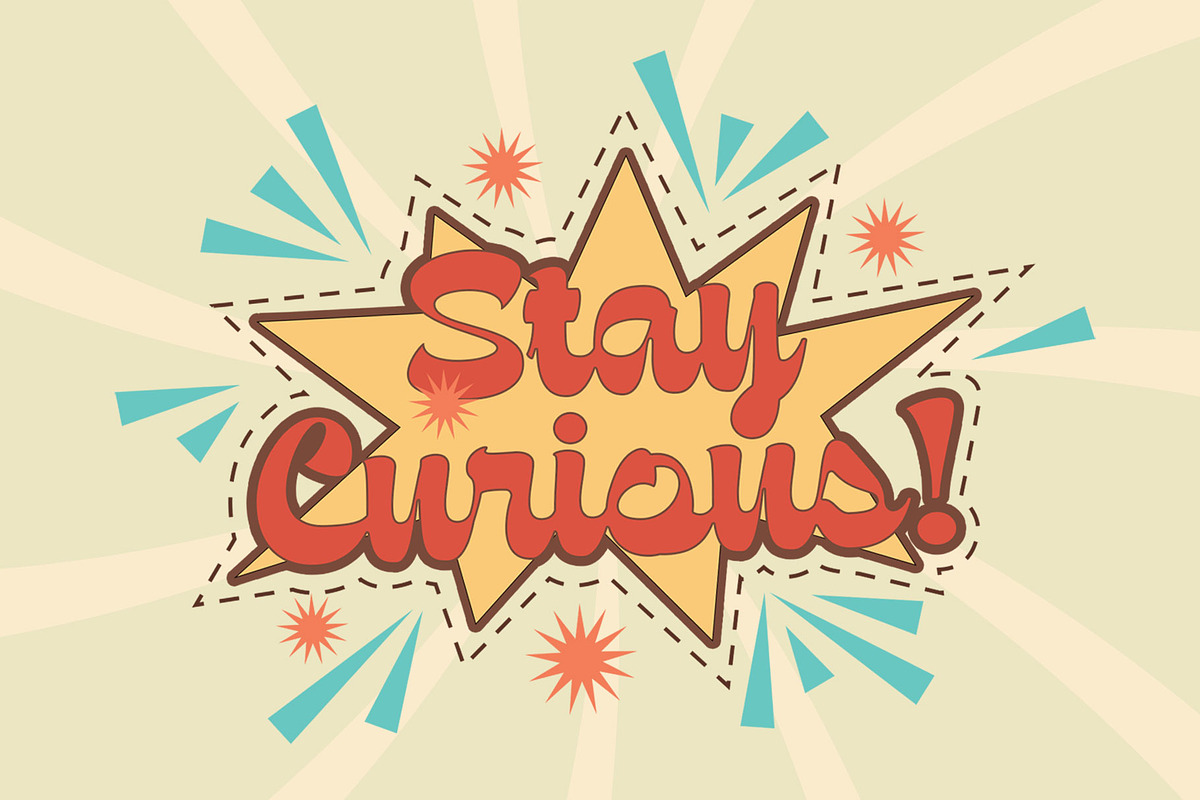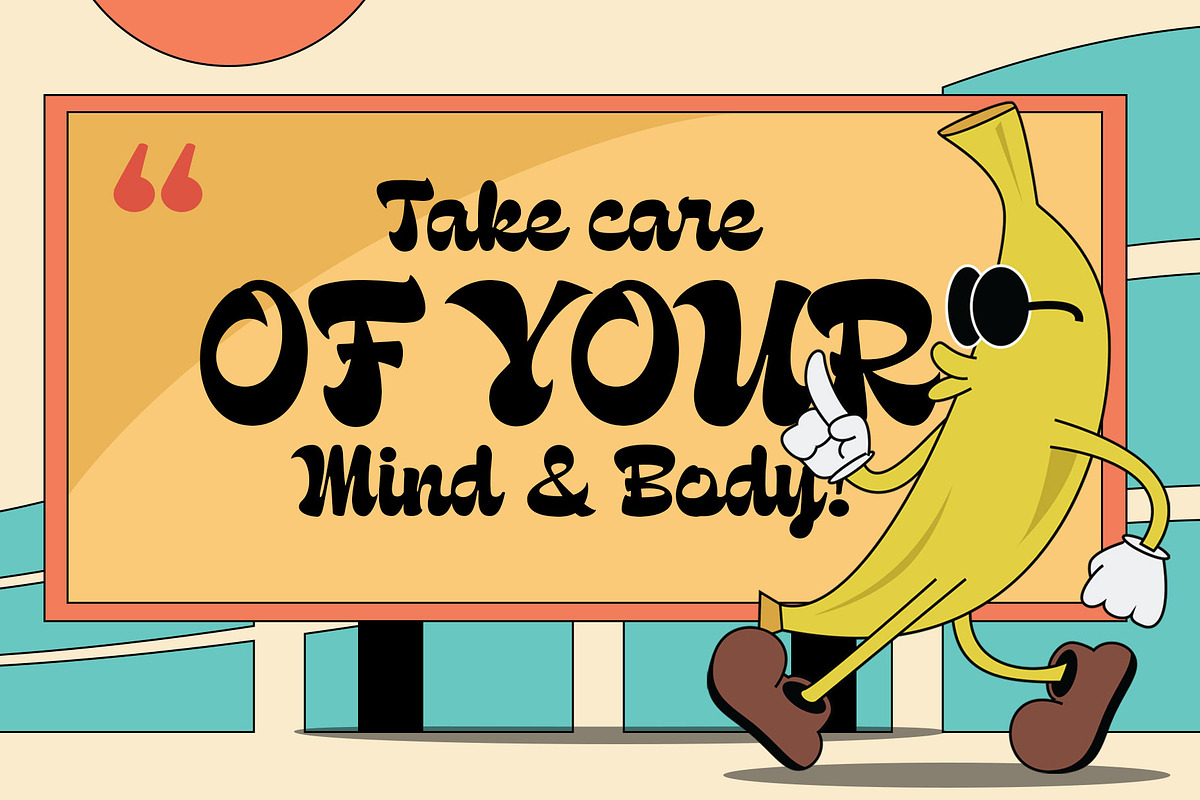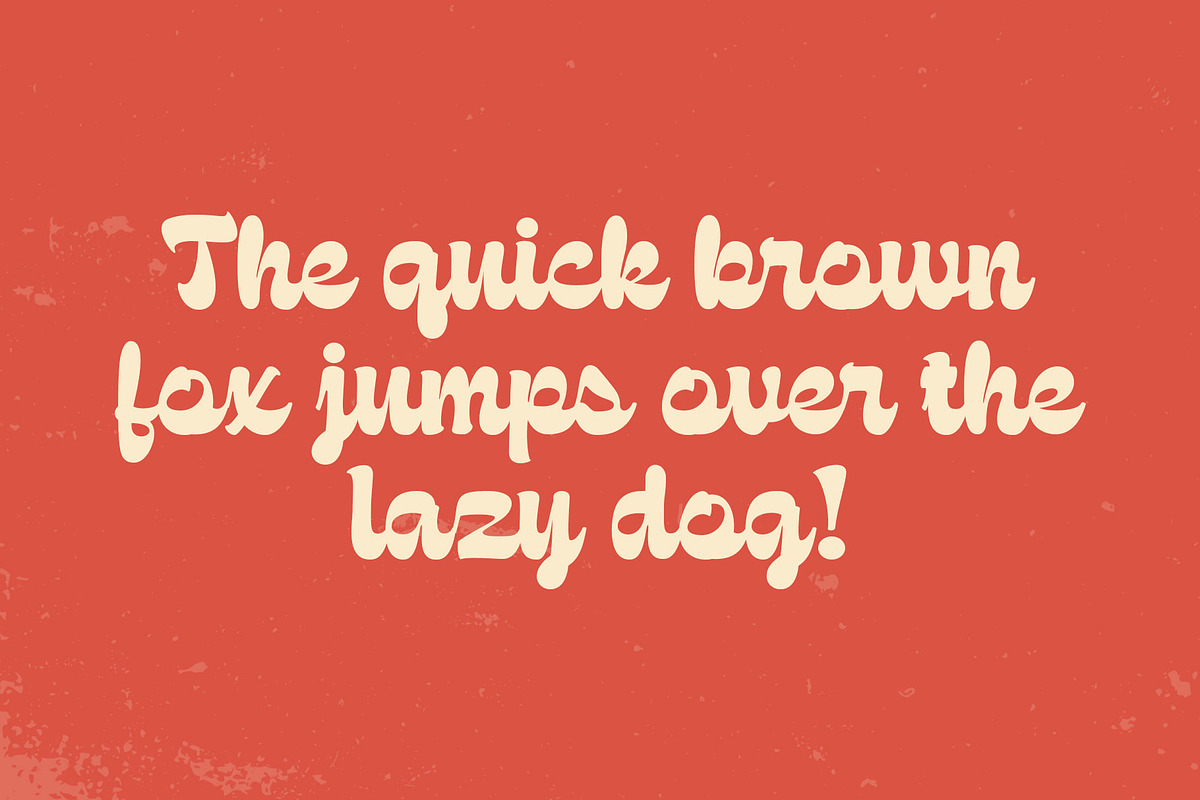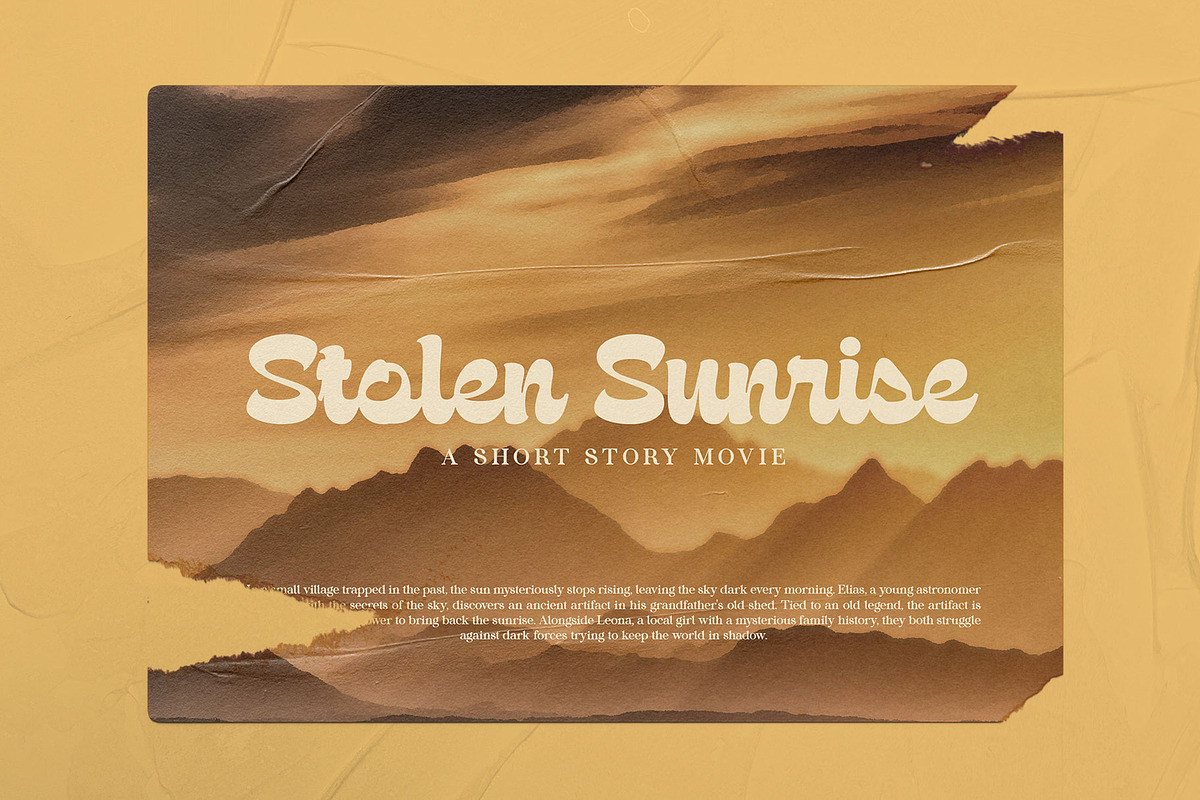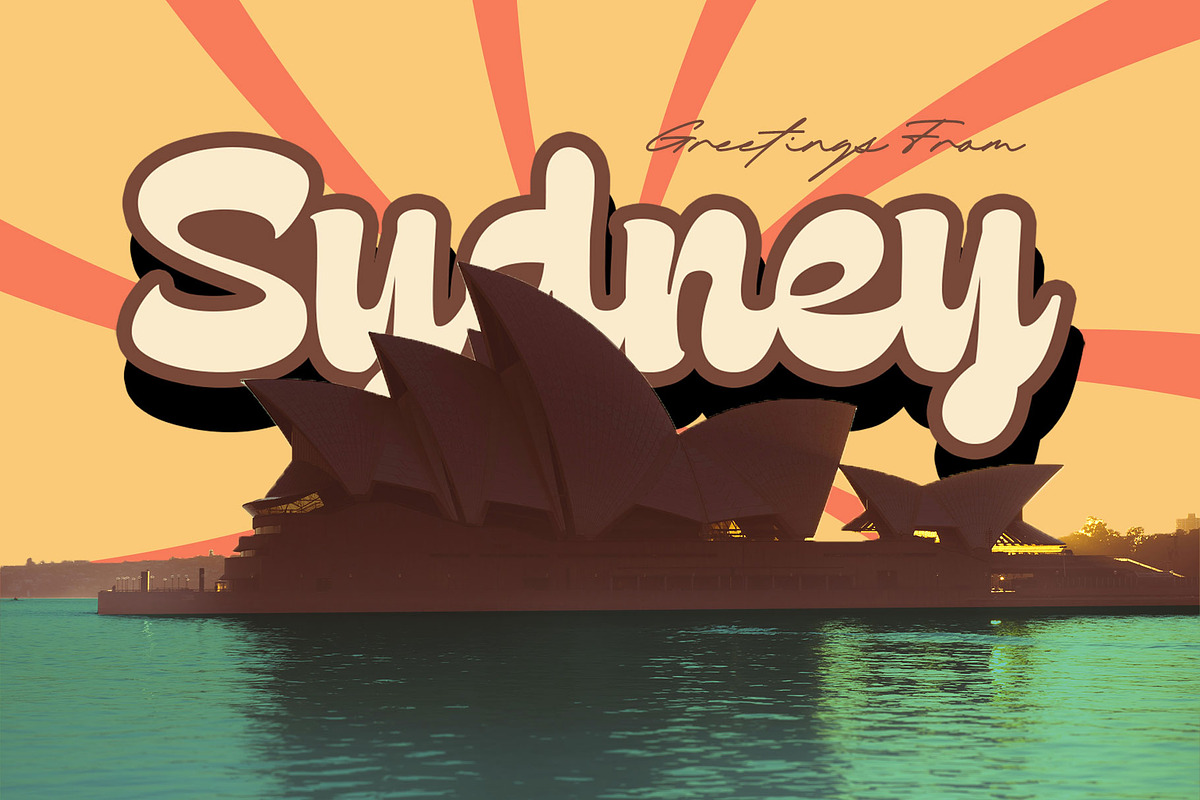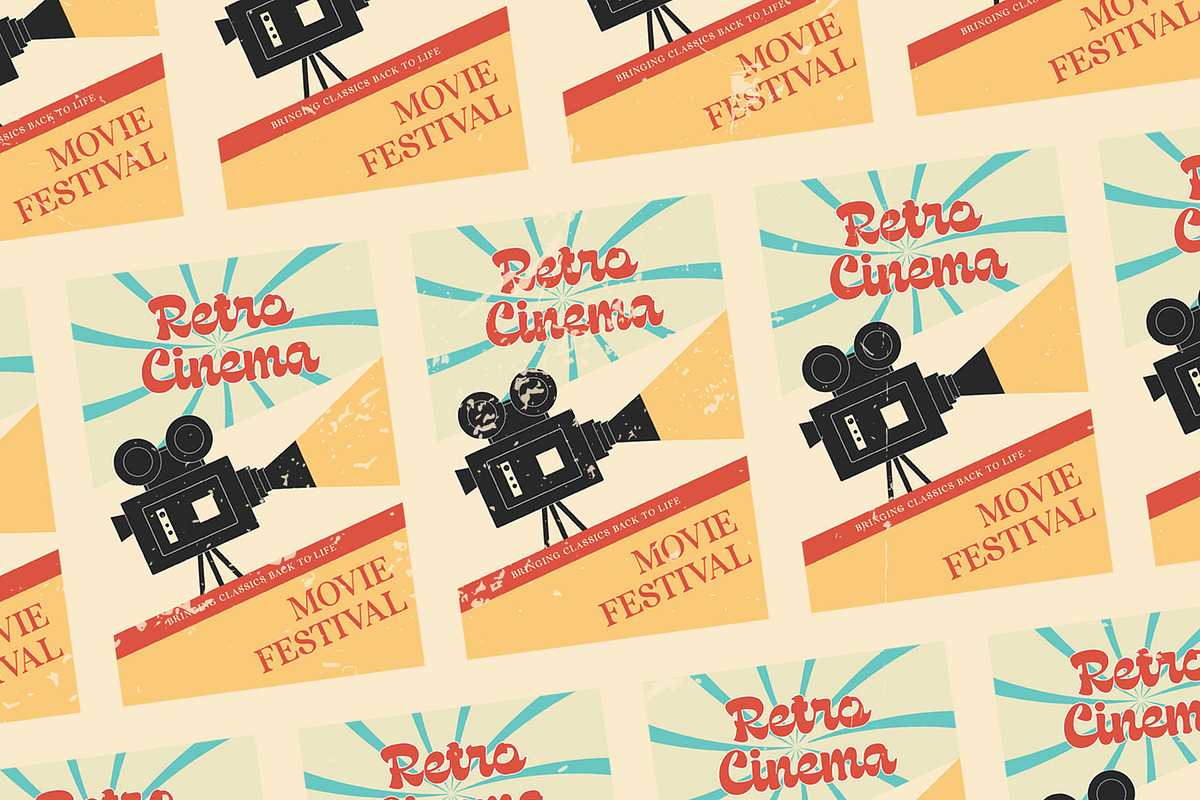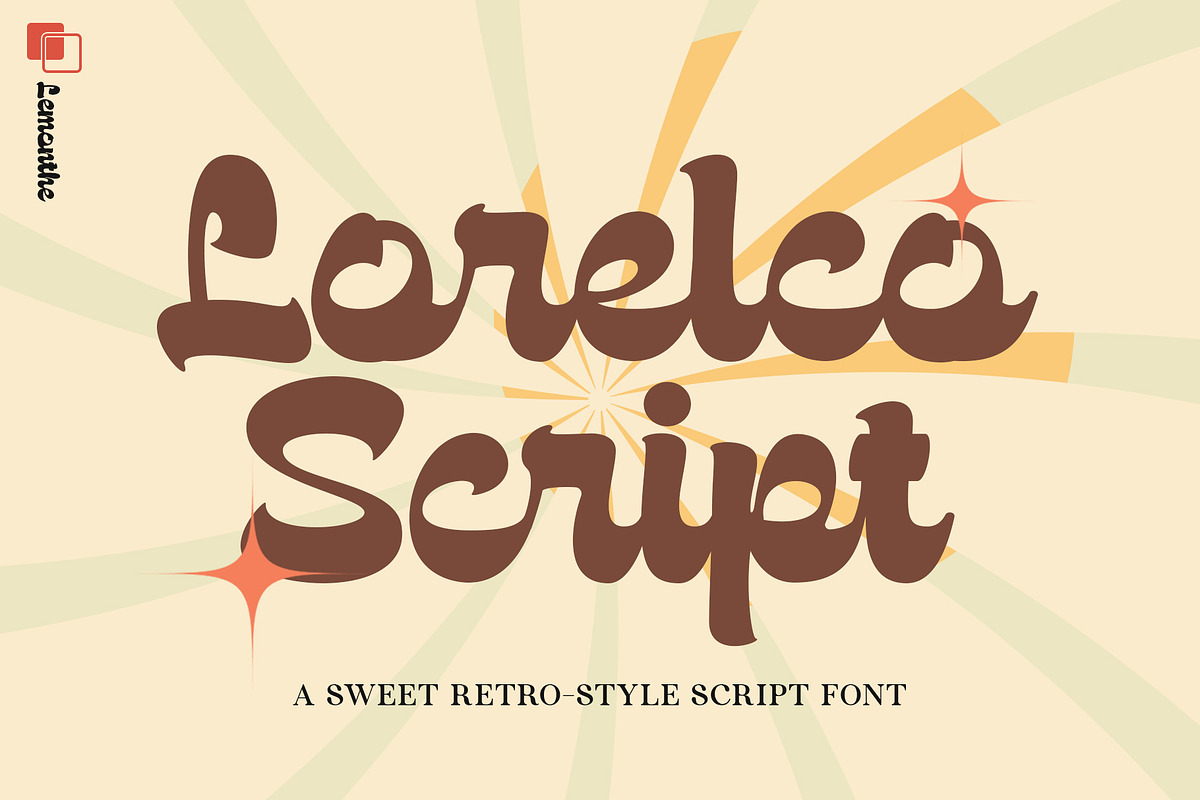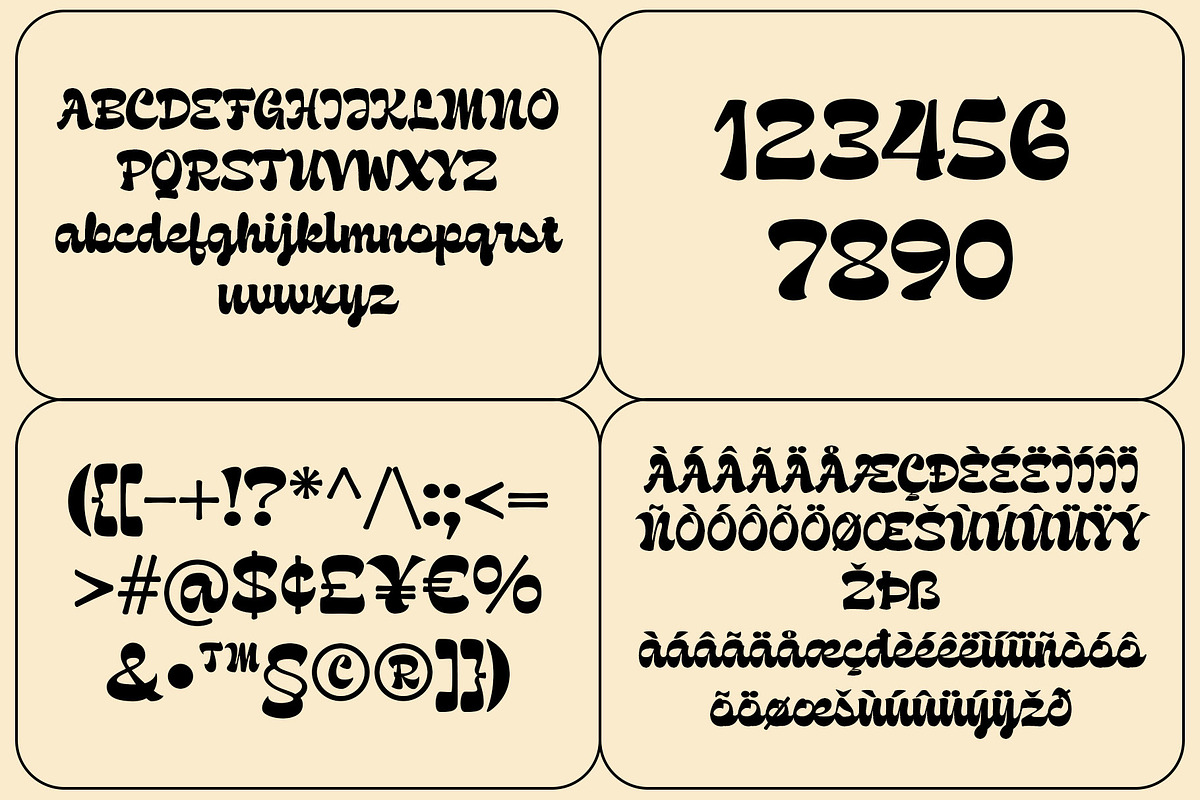
Lorelco | Retro Script
Lorelco Script is a delightful retro-style script font that brings a sweet and nostalgic charm to your designs. Its bold and flowing letterforms are perfect for creating vintage-inspired logos, playful packaging, cheerful posters, and eye-catching social media graphics.